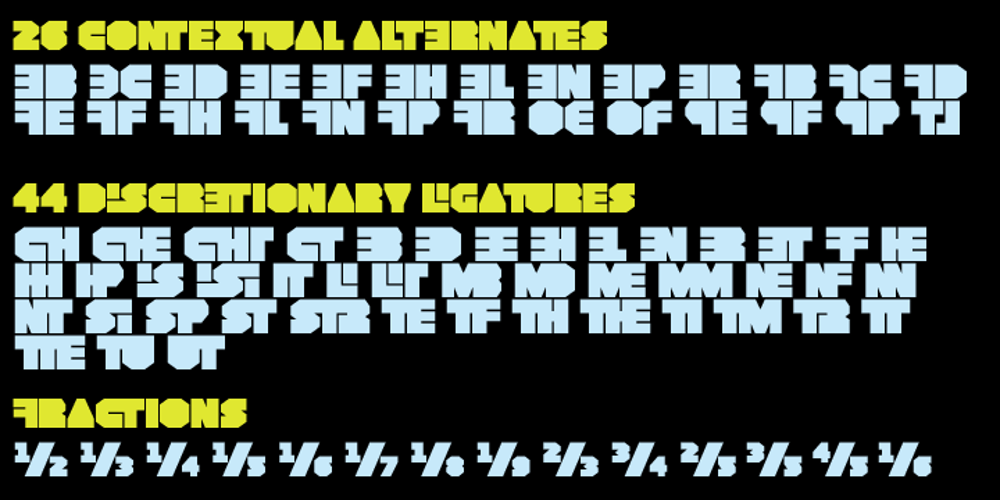
Eklipse Font Family was designed by published by Neder. Eklipse contains 1 styles and family package options. Eklipse is a ultra-black typeface from Neder Type. Designed to defy the limits of legibility it is also a journey into a universe of strange possibilities. With multi-lingual support, contains more than 60 ligatures and contextual alternates! Eklipse fits perfect in headlines, logos and small blocks of text.